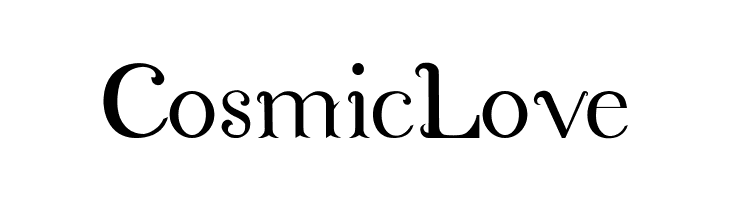
A whimsical font with letters inside fish shapes, perfect for aquatic-themed projects.
A bold, graffiti-inspired font with a dynamic, hand-drawn style.
A playful, hand-drawn outline font with a tall, narrow design.
A whimsical, decorative serif font with playful curls and loops.
A bold, geometric font with a modern and decorative style.
A bold, geometric font with a futuristic and edgy design.
A graceful and elegant script font with flowing, cursive letters.
A graffiti-inspired font with bold, sweeping strokes and intricate detailing.
设计师偏爱 Somic_Cans_SM, Snowfall Ultra Oblique, KR Fishy, Pink Vapor and Playbook-Outline Outline,因为其造型干净、适用范围广—— 从品牌识别到落地页、海报都能胜任。